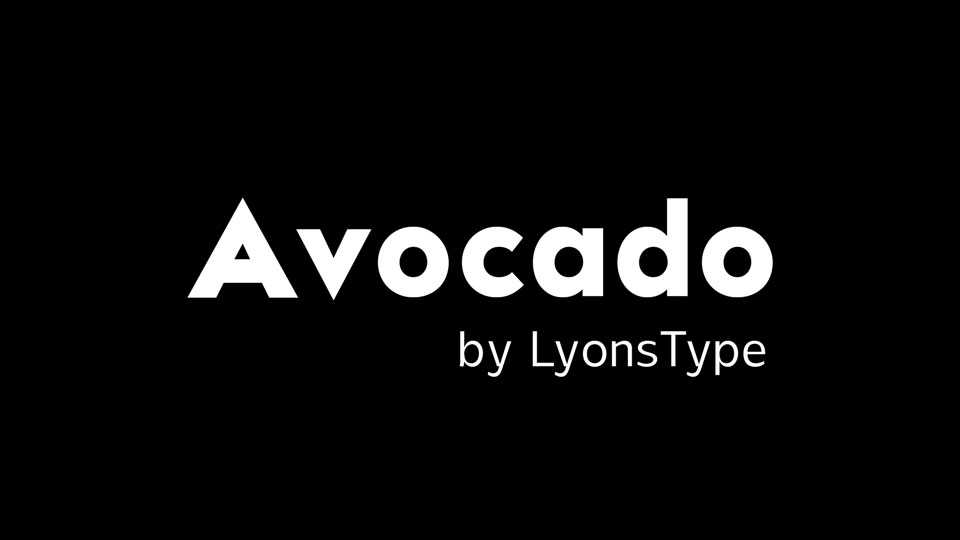
Download LT Avocado font, a sleek, modern sans serif typeface built on the foundations of geometric precision and clean lines crafted with balanced shapes and smooth curves.
Designer: LyonsType